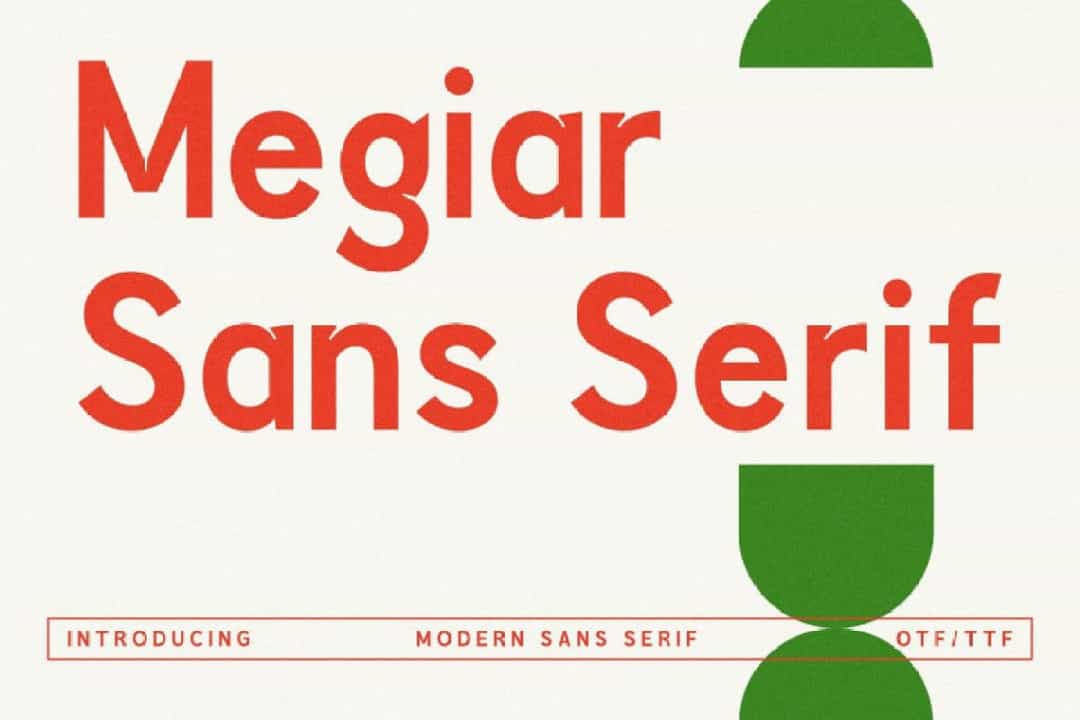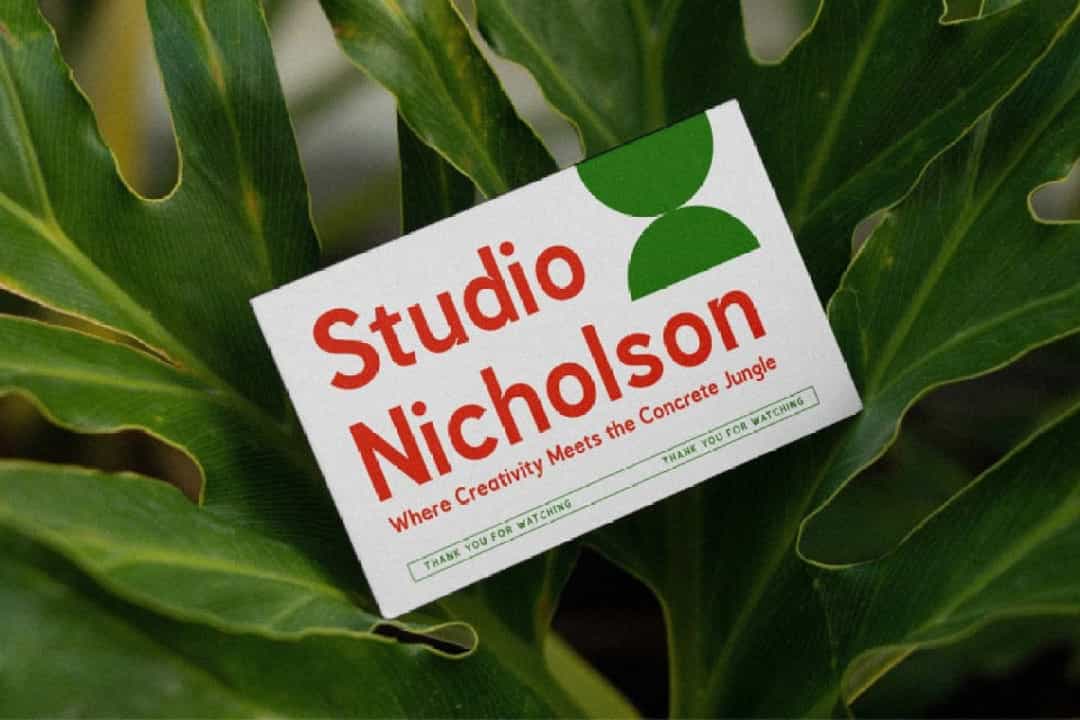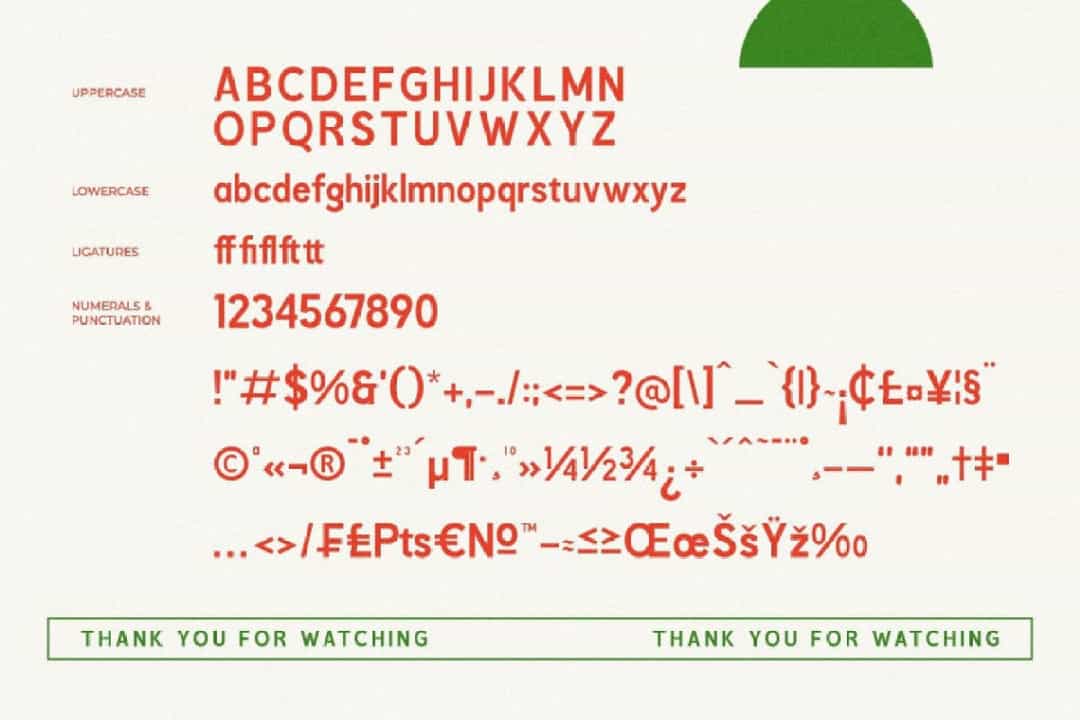
Megiar can be described as an elegant and striking sans-serif font, perfect for creating classy and elegant logos, movie or book name designs, fashion clothing brand names and clothing labels, magazines letters or quotes among many other uses.